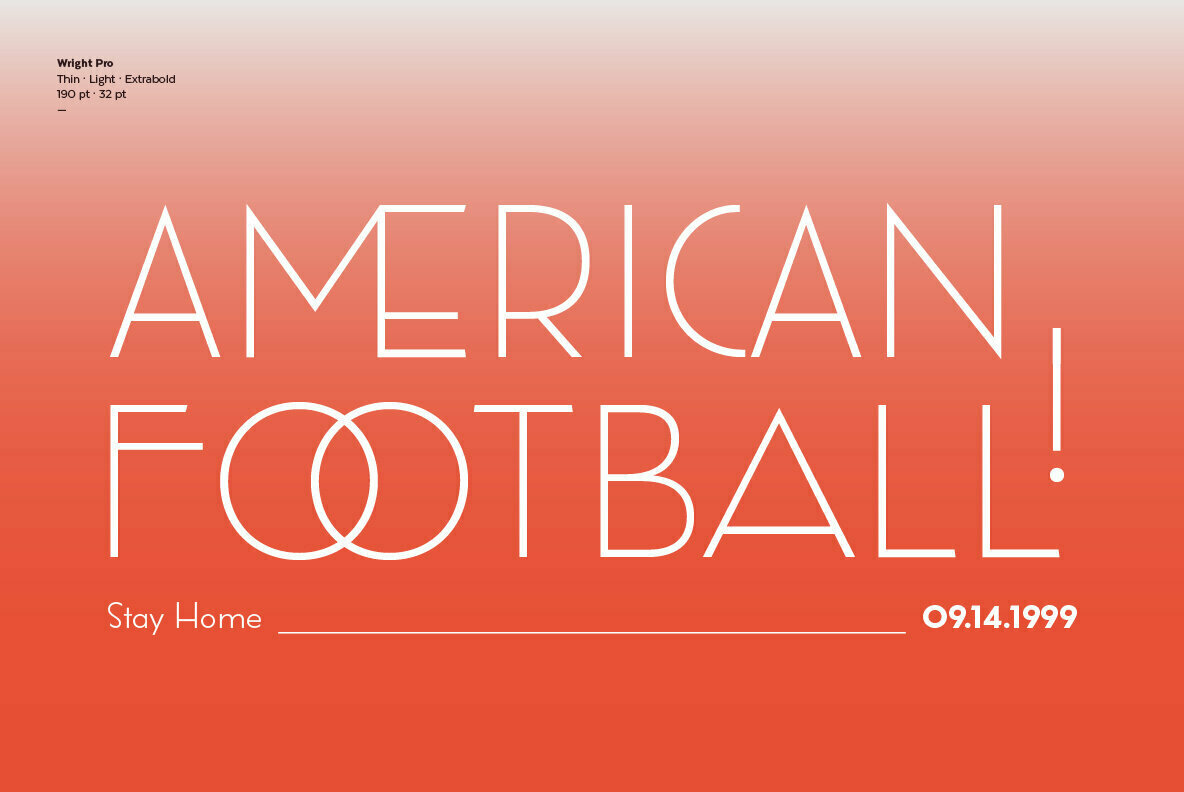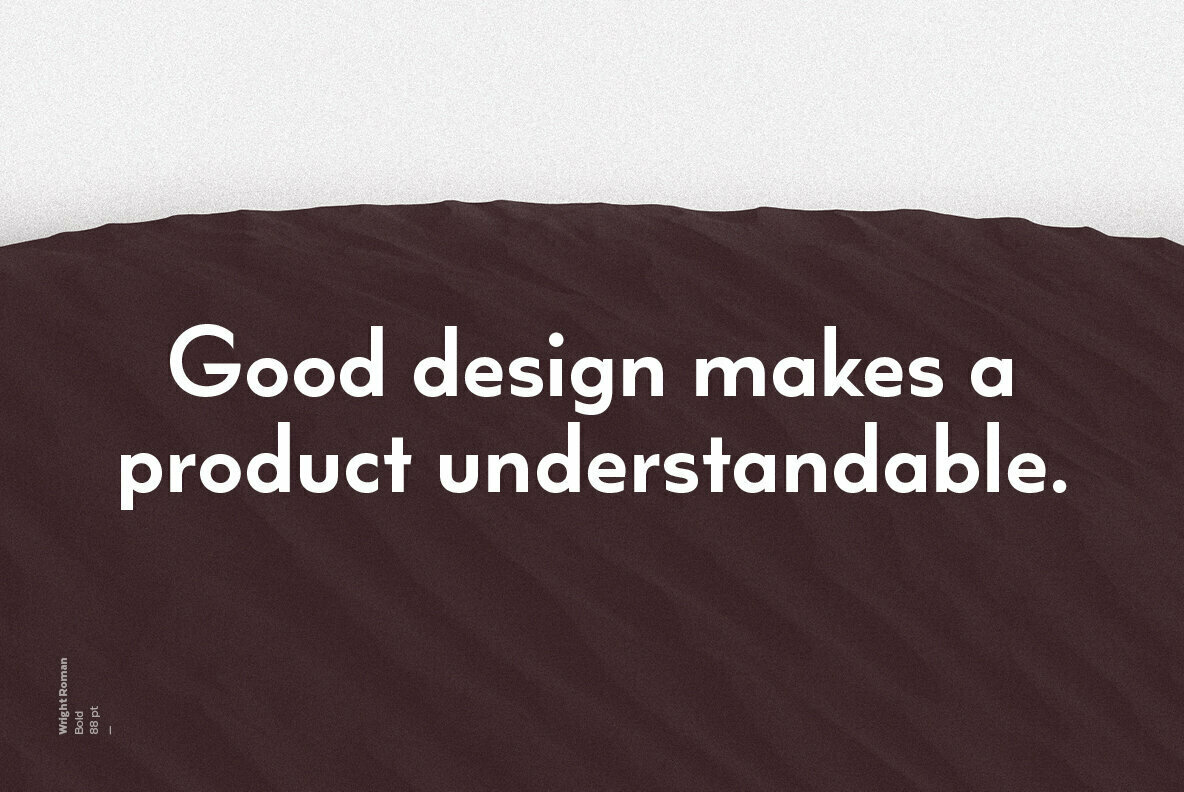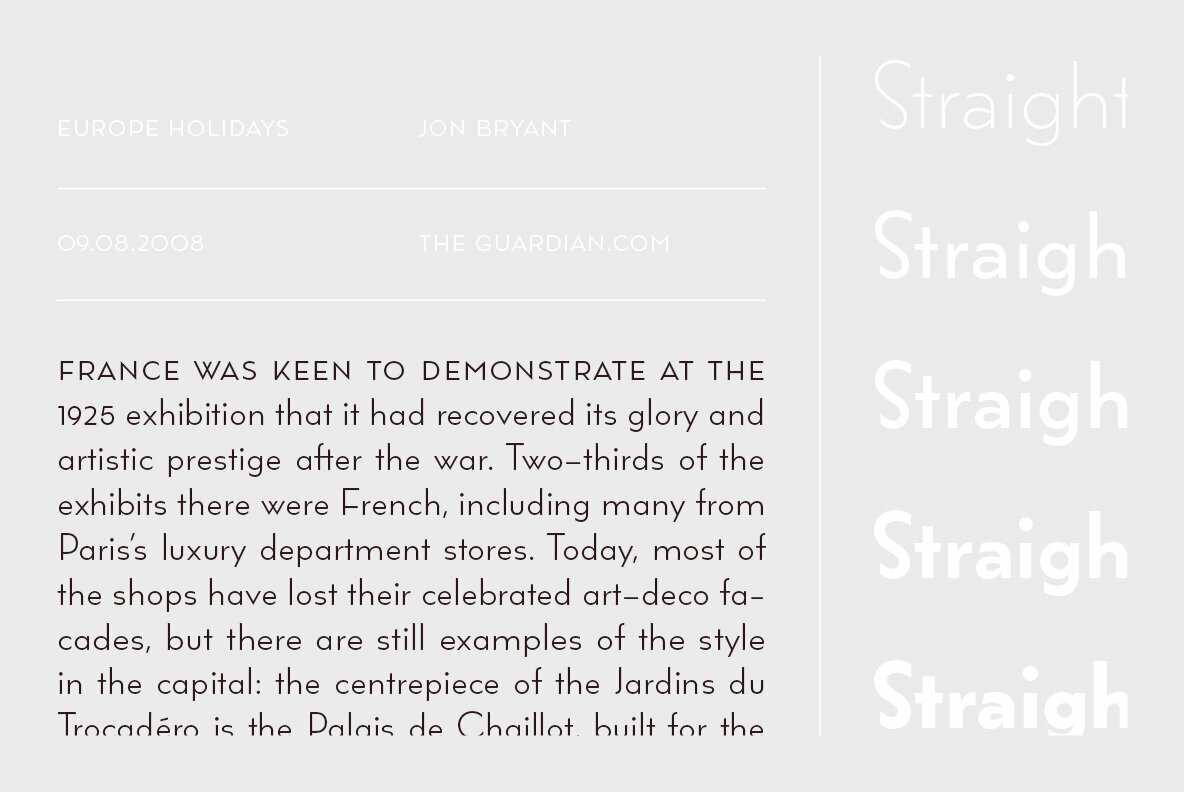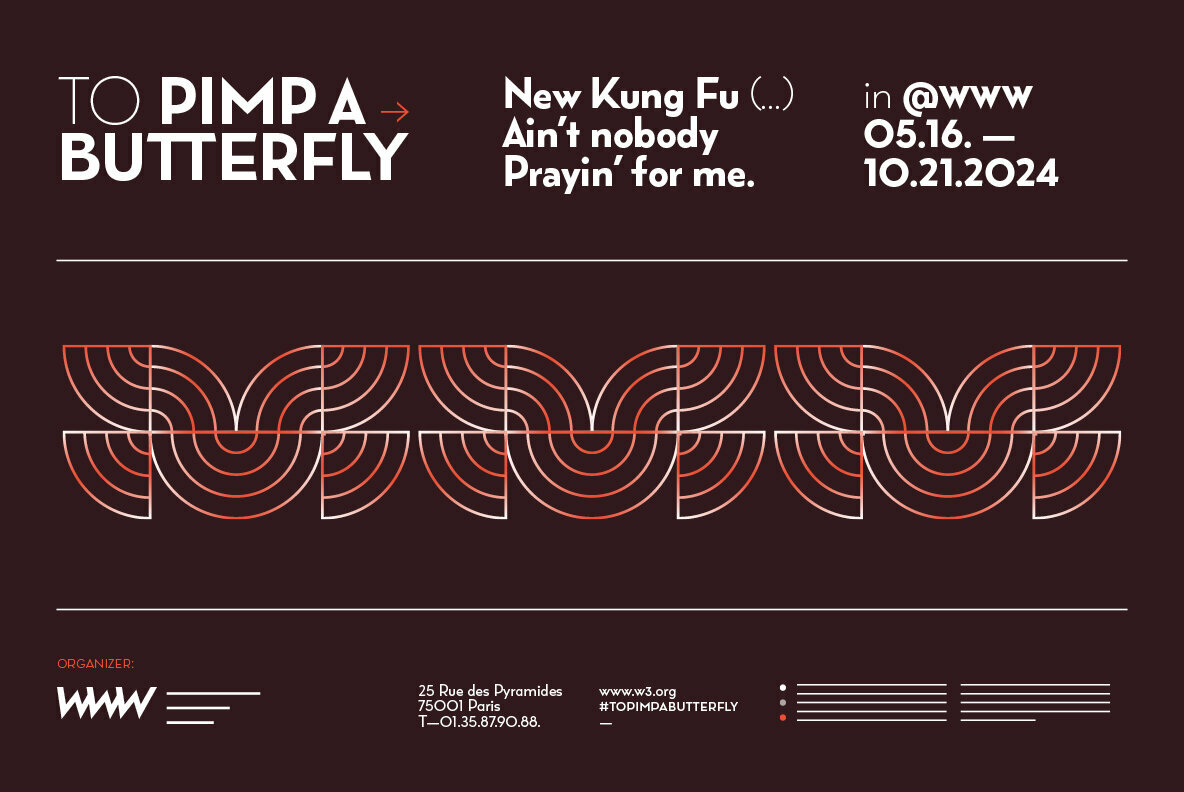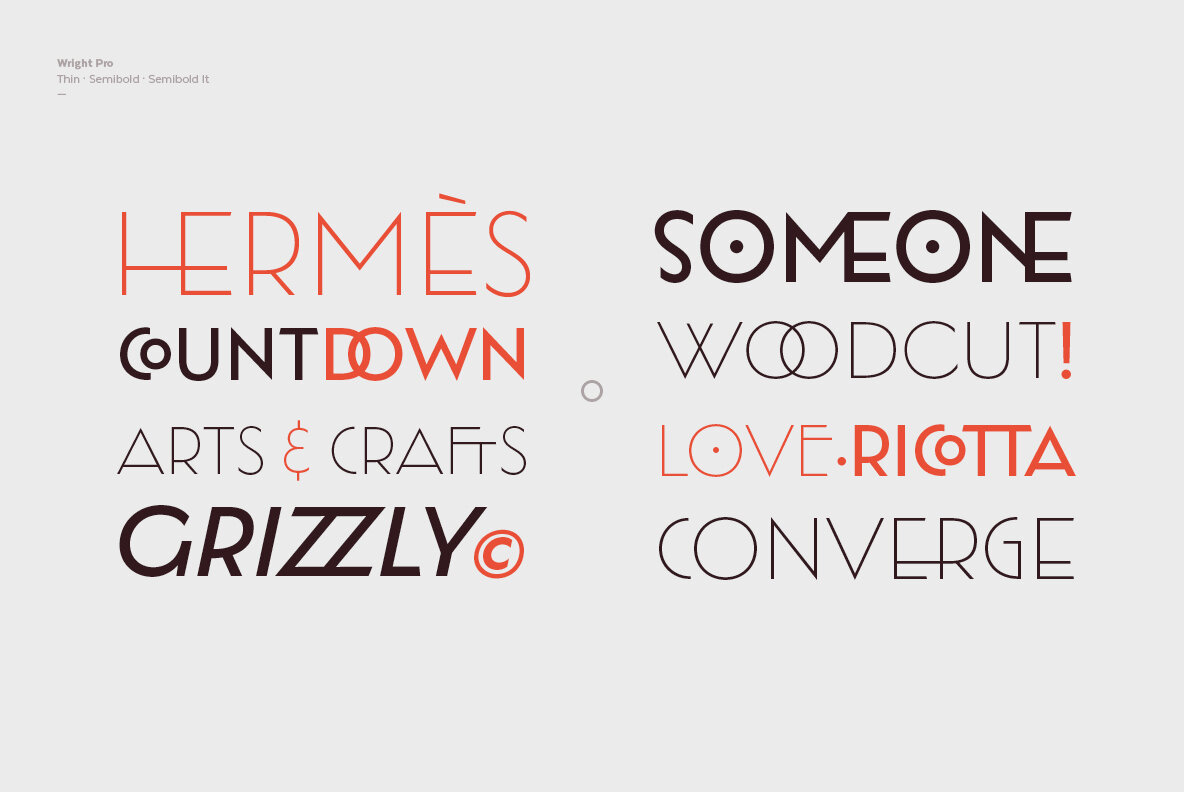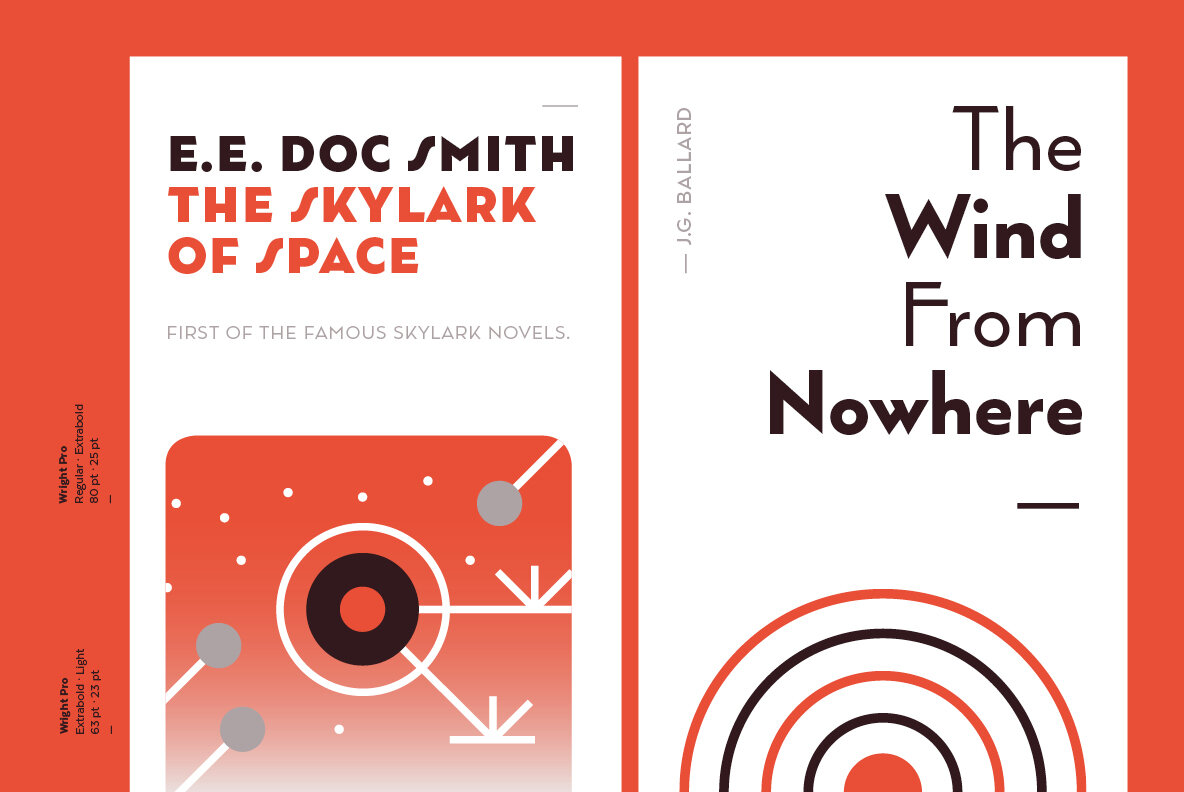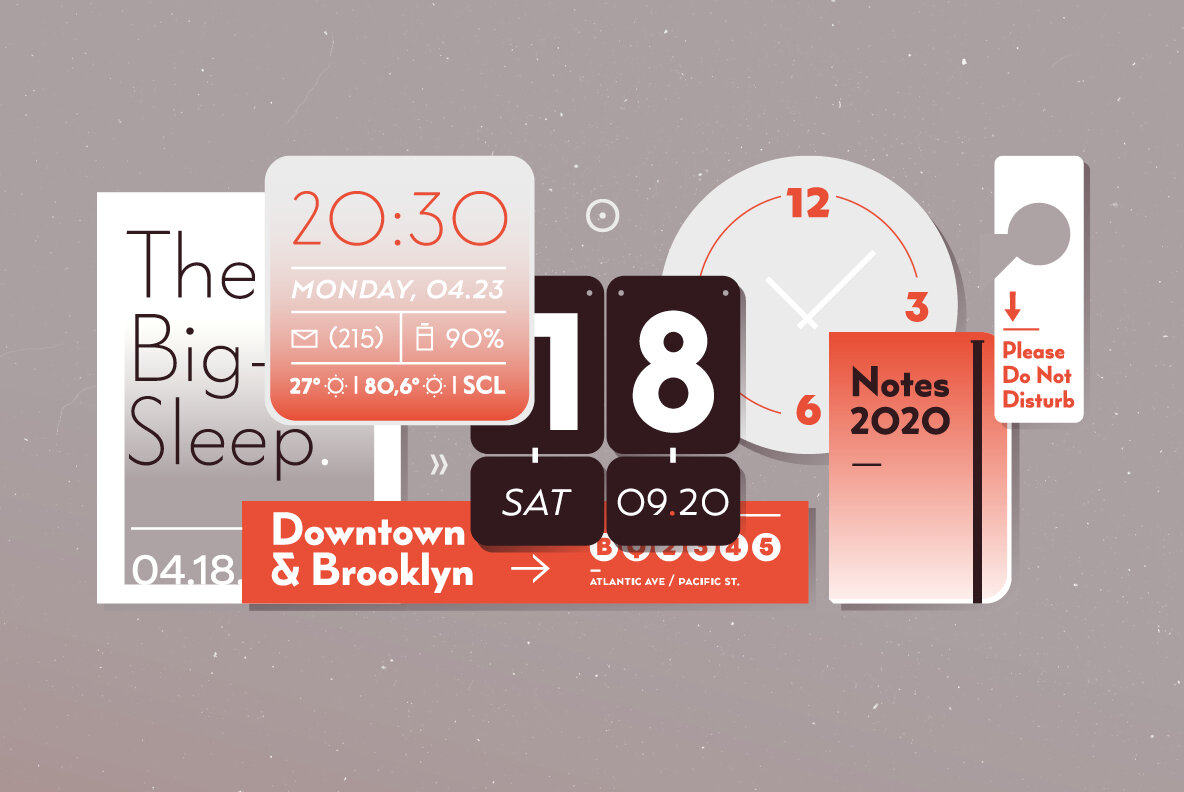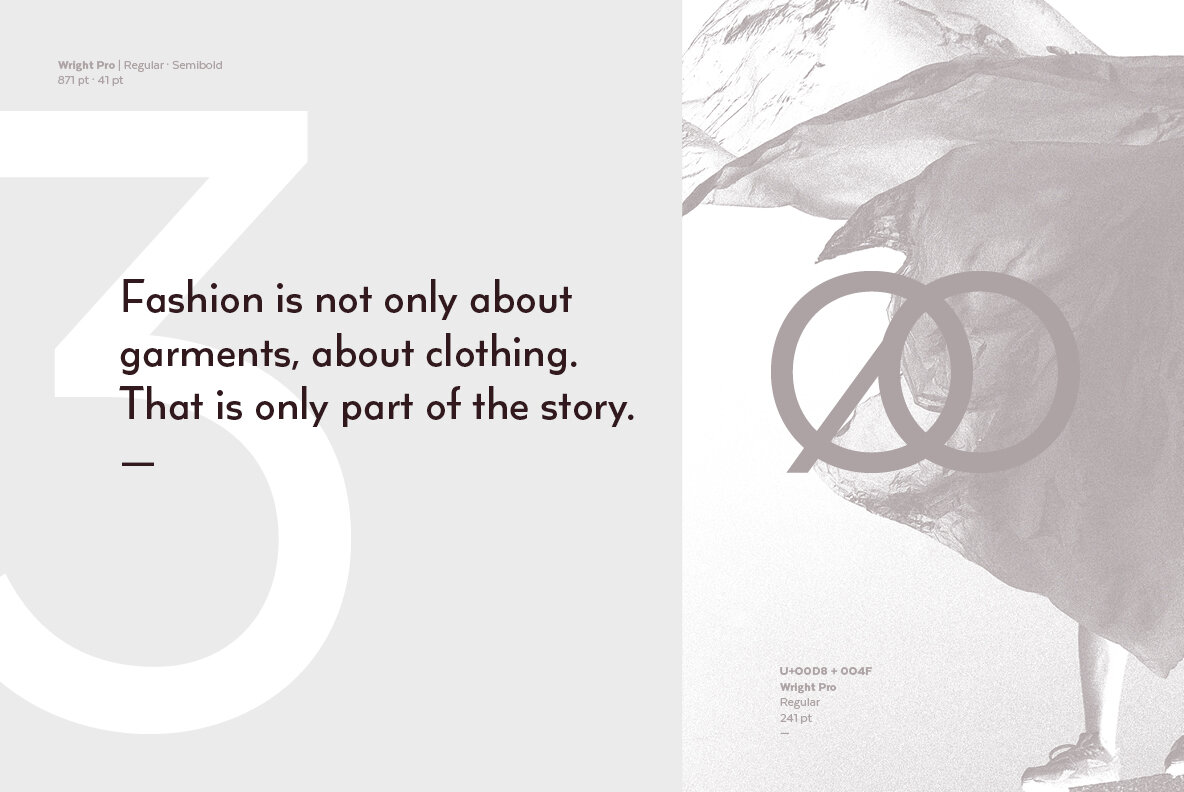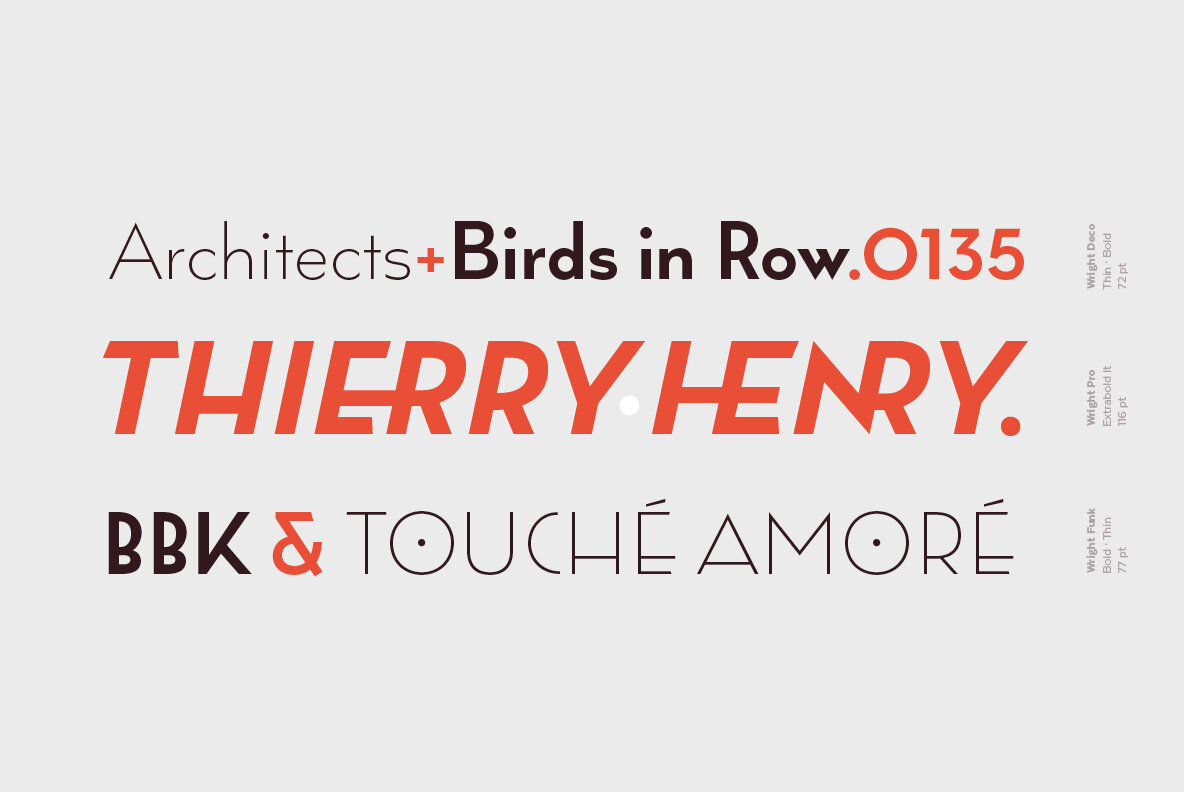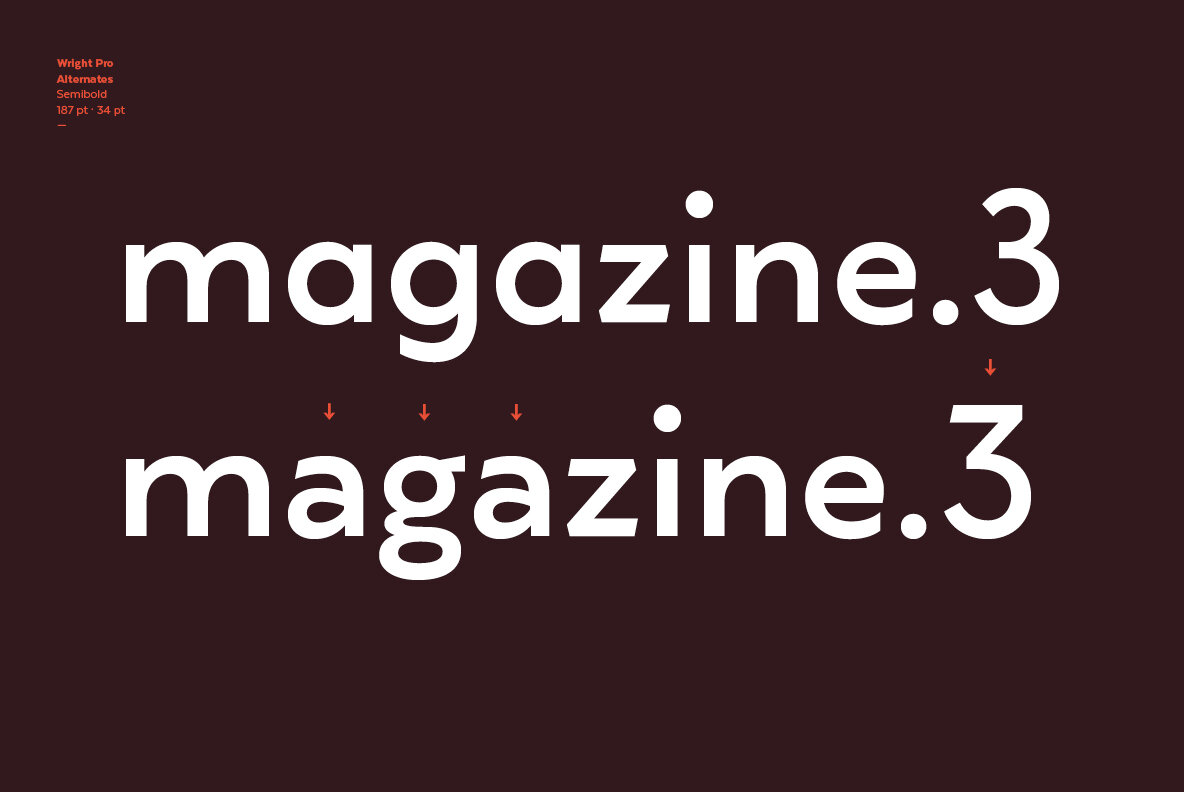
Wright Font
Wright is a sans-serif geometric typeface inspired by the lettering found on modernist building plans. An elegant small x-height, tall ascenders and wide capital letters make the font look great in titles and short paragraphs.
Wright consists of 4 subfamilies, each in 6 weights plus italics—48 fonts in all. Its wide range of alternates and ligatures make it an ideal workhorse suitable for a variety of projects and give your designs a stylish appearance and unique look.